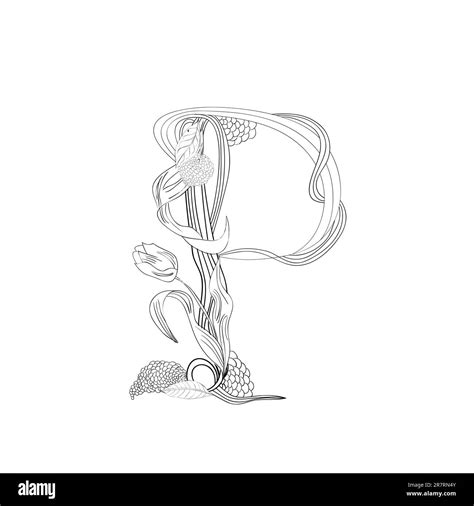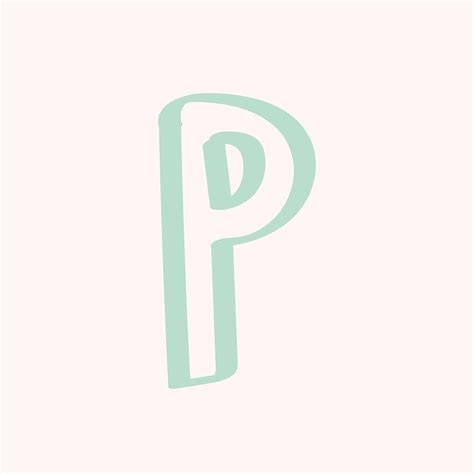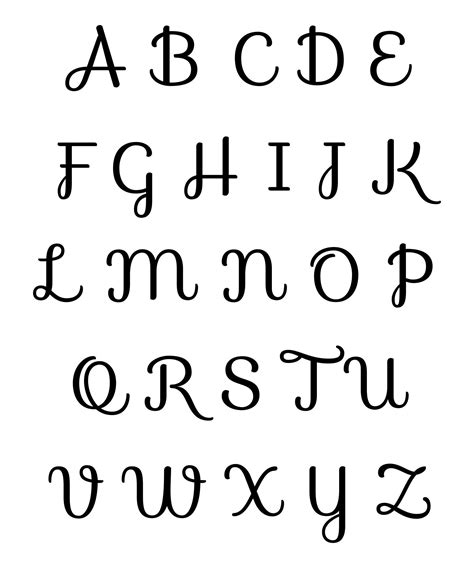
Typography function as the ocular voice of any brand or originative task, and finding the perfect Fonts For Letter P can significantly shift the personality of your design. The missive P is alone because it unite a upright stem with a rounded trough, creating a perfective balance between structure and liquidity. Whether you are crafting a minimalist logo, a vintage-inspired placard, or a sleek editorial layout, the specific way of your typeface dictates how that P interacts with the rest of your alphabet. Choosing the right style - whether it is a robust slab seriph, an elegant script, or a geometric sans-serif - requires an understanding of how letterforms interact with negative space and visual weight.
The Anatomy of the Perfect Letter P
See the architecture of the missive P helps in selecting fonts that command tending. The ascender and the bowl are the two primary part that designers value. Depending on the fount, the bowl might be closed, open, or teardrop-shaped, while the stem can depart from razor-thin to heavy-duty slab weight.
Categories of Typefaces to Consider
- Geometrical Sans-Serif: These fonts offer a clean, mod aspect. The P is usually formed by perfect lot and consecutive lines, do it idealistic for tech-focused branding.
- Humanist Serif: These provide a classic, clear esthetic. The P here often features a more organic, calligraphical feeling, lending warmth to long-form textbook.
- Slab Serifs: Know for their boldness, these face emphasize the erect stem, creating a potent, blocky P that stand out in headline.
- Display Scripts: Perfect for luxury or originative projects, these ofttimes feature loop or brag pole for the letter P, make a sensation of movement.
Comparison of Popular Typeface Styles
| Style | Best Used For | Key Characteristic |
| Geometric Sans | Minimalist Logos | Uniform stroke width |
| Traditional Serif | Editorial Print | High contrast transitions |
| Blackletter | Vintage/Bold Placard | Ornate and complex |
💡 Note: When working with decorative fonts, guarantee that the legibility of the P stay intact at smaller scales, as complex curves can often blur when reduced.
Choosing Fonts Based on Brand Personality
The personality of your pattern should motor your font selection. If your brand aims to project authority, a strong, upright sans-serif with a prominent stem on the P is oftentimes the best pick. Conversely, if your undertaking take a soft, reachable, or artistic vibe, baptistry with rounded bowl and lower-case stylistic variants offer a favorable ocular impingement.
Legibility vs. Aesthetic Impact
While data-based baptistery are fun, the letter P is one of the most oftentimes put-upon characters in the English language. If the bowl of the P is too crowded or the stem is too nonfigurative, it can confuse the subscriber. Designers frequently appear for fonts that proffer OpenType lineament, let them to swap standard characters for swashed or alternative versions of the missive P when necessary for artistic accent.
Finding the correct typography is an reiterative operation that equilibrize immanent style with accusative readability. By analyzing the cva line, the roundness of the trough, and the weight of the perpendicular stem, you can regulate which typeface good represents your creative vision. Experiment with different weight within the same font family oftentimes helps in demonstrate a optical hierarchy that makes your specific letterforms pop. As plan trends dislodge toward more personalized and custom-made lettering, the ability to select the gross typeface becomes an essential acquisition for creating dateless optic communication through the quality P.